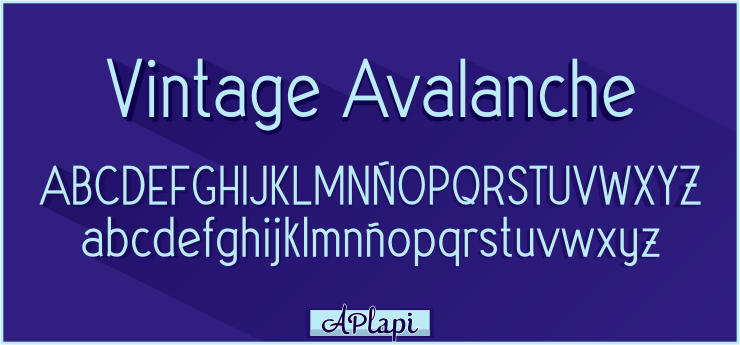
"Vintage Avalanche" is a conspicuous, thin yet highly readable type which works well in all environments, as effective in both small sizes as in large titling signage. If you like this font, feel free to show your thankfulness with the ‘Get the author a crosswords book via Paypal ’ misnamed ‘Donate to the Author’ situated right below the download button on the right of this page. "Vintage Avalanche" is a type somewhat inspired by a handmade sign that appears on the movie '007 On Her Majesty's Secret Service'. For a fully functional license please mail me. |